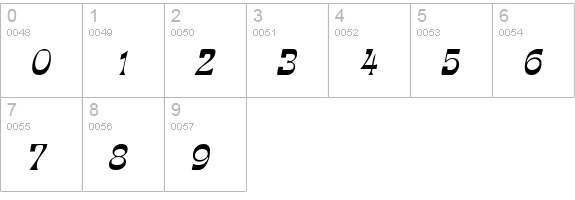
Grouse Italic Font Details
Grouse Italic is a distinctive, italic variant in the Grouse typeface family \xE2\x80\x94 well suited to design and typography projects.
Grouse Italic font is a sophisticated and elegant typeface that exudes a sense of grace and refinement. Its sleek, flowing curves and delicate strokes give it a timeless appeal that is perfect for adding a touch of sophistication to any design project. The italicized style of Grouse adds a touch of elegance and flair, making it ideal for invitations, branding, and other creative projects where a touch of class is desired. What makes Grouse Italic font even more appealing is that it is available for free download at FontsMarket.com. This means that you can easily access and use this beautiful font in your projects without having to worry about any additional costs. Whether you're a seasoned designer or just starting out, Grouse Italic font is a versatile and stylish choice that will elevate your designs to the next level.